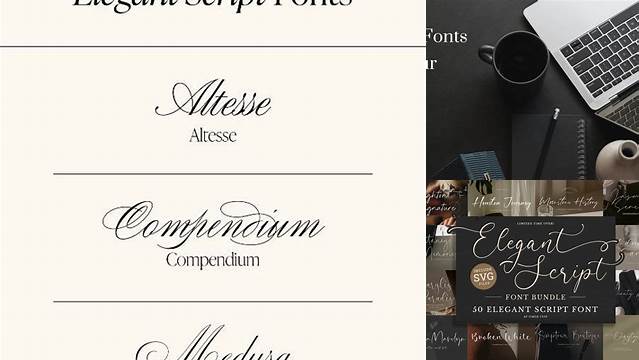
Free Luxury Script Fonts: Download Now!
Are you looking to add a touch of elegance and sophistication to your projects? Luxury script fonts are the perfect way to do just that! These fonts evoke a sense of high-end design, making them ideal for invitations, logos, branding materials, and so much more. The best part? You can find some stunning options available for free download. Let's dive into the world of luxury script fonts and discover how to use them to enhance your creative endeavors.
What Makes a Font 'Luxury'?
Before we jump into the fonts themselves, let's understand what qualities define a luxury script font. It's not just about being fancy; it's about the overall impression a font creates. Luxury fonts often feature:
- Elegant Swashes and Flourishes: These decorative elements add a touch of refinement and visual interest. Swashes are extended strokes that embellish letters, while flourishes are elaborate decorations that can be added to initials or endings.
- Smooth, Flowing Lines: The script should appear effortless and graceful. This is achieved through careful design and attention to detail, ensuring that the strokes seamlessly connect and create a harmonious flow.
- High Contrast: A noticeable difference between thick and thin strokes can add drama and sophistication. This contrast draws the eye and highlights the unique characteristics of each letterform.
- Distinctive Letterforms: Each letter should have its own unique personality, contributing to the overall character of the font. This can be achieved through subtle variations in shape, weight, and angle.
- Excellent Kerning and Spacing: Proper kerning (the spacing between individual letters) and spacing (the overall distance between words and lines) are crucial for readability and visual appeal. Luxury fonts are meticulously crafted to ensure that the text looks balanced and harmonious.
In essence, a luxury script font embodies a sense of artistry and attention to detail. It's a font that feels special and adds a touch of class to any design project. These fonts communicate feelings of exclusivity, sophistication, and high quality, making them perfect for projects that aim to impress.
- Individual Designers' Websites: Many independent font designers offer free fonts on their websites to promote their work. Look for design blogs and online portfolios to find these hidden gems. This is a great way to support independent artists and discover unique fonts that you won't find anywhere else.
- Font Bundles: Keep an eye out for font bundles that include a variety of fonts, including script styles. These bundles are often heavily discounted and can be a great way to build your font library. Just make sure to carefully review the contents of the bundle to ensure that it includes the type of luxury script font you're looking for.
Top Free Luxury Script Font Recommendations
Alright guys, let's get into some specific recommendations for free luxury script fonts you can download today. Keep in mind that availability can change, so it's always a good idea to double-check the download links and licensing before using these fonts. But based on current offerings, here are a few standouts: